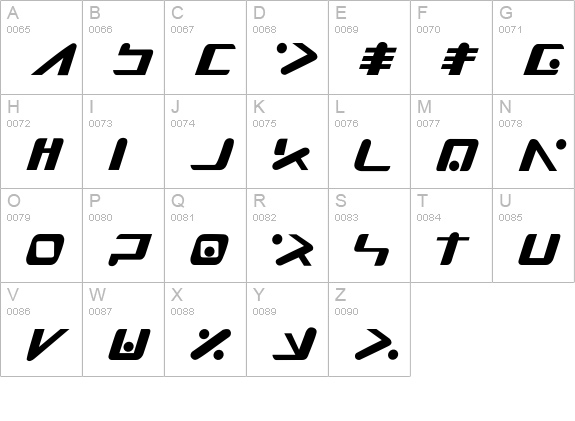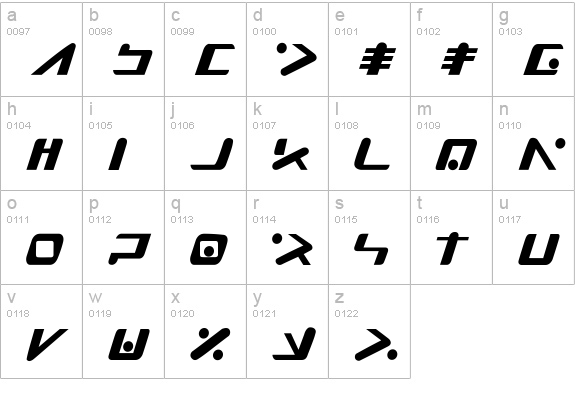
BeyondMachines Font Details
Introducing BeyondMachines font, a sleek and futuristic typeface that seamlessly blends technology and creativity. This innovative font is perfect for projects that require a modern and cutting-edge aesthetic. BeyondMachines features sharp lines and geometric shapes that exude a sense of sophistication and innovation. Designed with precision and attention to detail, BeyondMachines is versatile enough to be used in a variety of design applications, from branding to web design to editorial layouts. Whether you're working on a tech startup logo or a science fiction book cover, this font will make your projects stand out. Best of all, BeyondMachines is available for free download at FontsMarket.com. Take your designs to the next level with this unique and dynamic font that pushes the boundaries of typographic design. Download BeyondMachines today and unlock a world of creative possibilities.